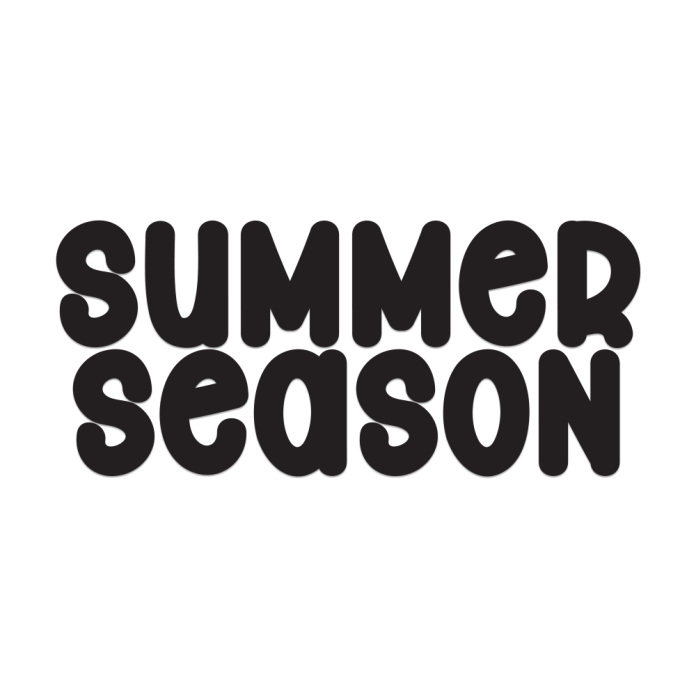
Summer Season is a fun and vibrant display font that captures the warmth and energy of sunny days. With its bold curves and cheerful character, it brings a fresh and exciting vibe to any design.
Perfect for travel posters, tropical-themed packaging, summer sale promotions, beach party invitations, and social media graphics, Summer Season makes your designs pop with personality.
Bold and Eye-catching Display Style
Fun, Cheerful, and Seasonal Look
Bring the heat and sunshine to your designs with the joyful energy of Summer Season!